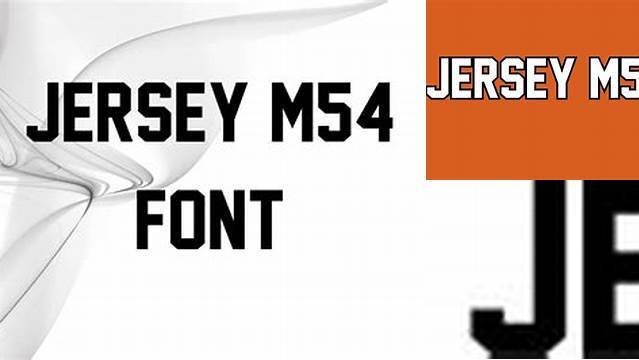
Hey guys! Looking to get your hands on the Jersey M54 Bold font? You've come to the right place! This font is super popular for sports jerseys, logos, and anything that needs a strong, athletic vibe. In this guide, we're going to dive deep into everything you need to know about the Jersey M54 Bold font, from where to download it for free to how to use it in your projects. Let’s get started!
1. What is Jersey M54 Bold Font?
The Jersey M54 Bold font is a typeface known for its strong, sporty appearance. It's designed with clean lines and a bold weight, making it perfect for jerseys, sports-related graphics, and any project that needs a touch of athleticism. This font stands out due to its clear legibility and impactful presence, making it a favorite among designers and sports enthusiasts alike. The strong, blocky characters convey a sense of power and dynamism, which is why it’s often used to create a sense of energy and movement in designs. Whether you're working on a sports team logo, designing merchandise, or creating graphics for a sporting event, the Jersey M54 Bold font can add a professional and athletic touch to your work. Its versatility makes it suitable for both print and digital media, ensuring your message is clear and impactful across various platforms. Understanding its characteristics is the first step in effectively using this font to enhance your design projects.